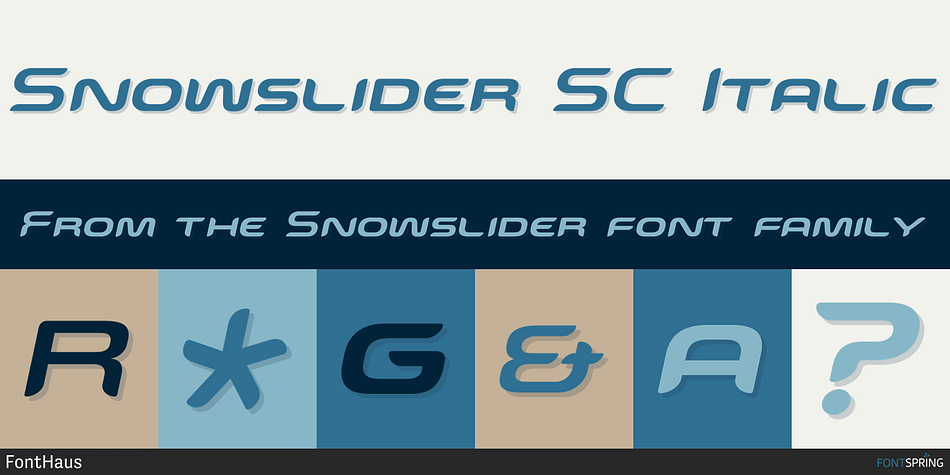
Snowslider SC Italic
Designed by Samy Halim, Snowslider is a display sans font family. This typeface has eight styles and was published by FontHaus.
Designed by Samy Halim, Snowslider is a FAMILY of 4 sans serif, extended fonts. The design is Rounded, techno, sci-fi, contemporary, clean, and trendy. Excellent for print or web.